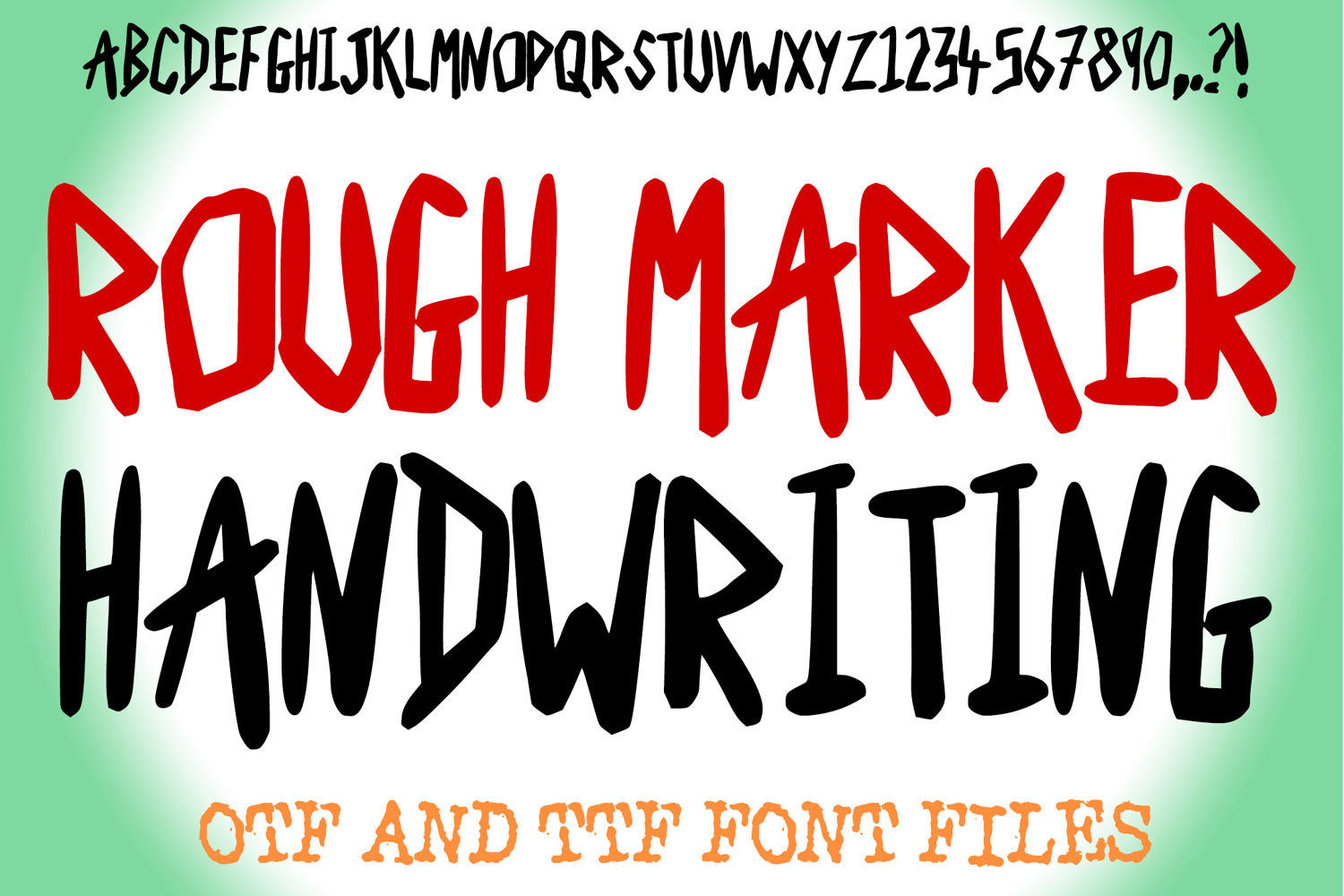
Rough Marker Handwritten Font is a bold, sketch-style display typeface that captures the authentic look of hand-drawn marker writing. With its rough strokes and casual handmade vibe, this font is perfect for posters, quotes, t-shirts, stickers, DIY crafts, scrapbooking, invitations, social media graphics, and digital designs.
Its raw, edgy style makes it a great choice for projects that need a casual, urban, and authentic look. Whether you’re designing for Cricut, Silhouette, Procreate, or Photoshop, this versatile font adds a creative hand-drawn touch to your work.